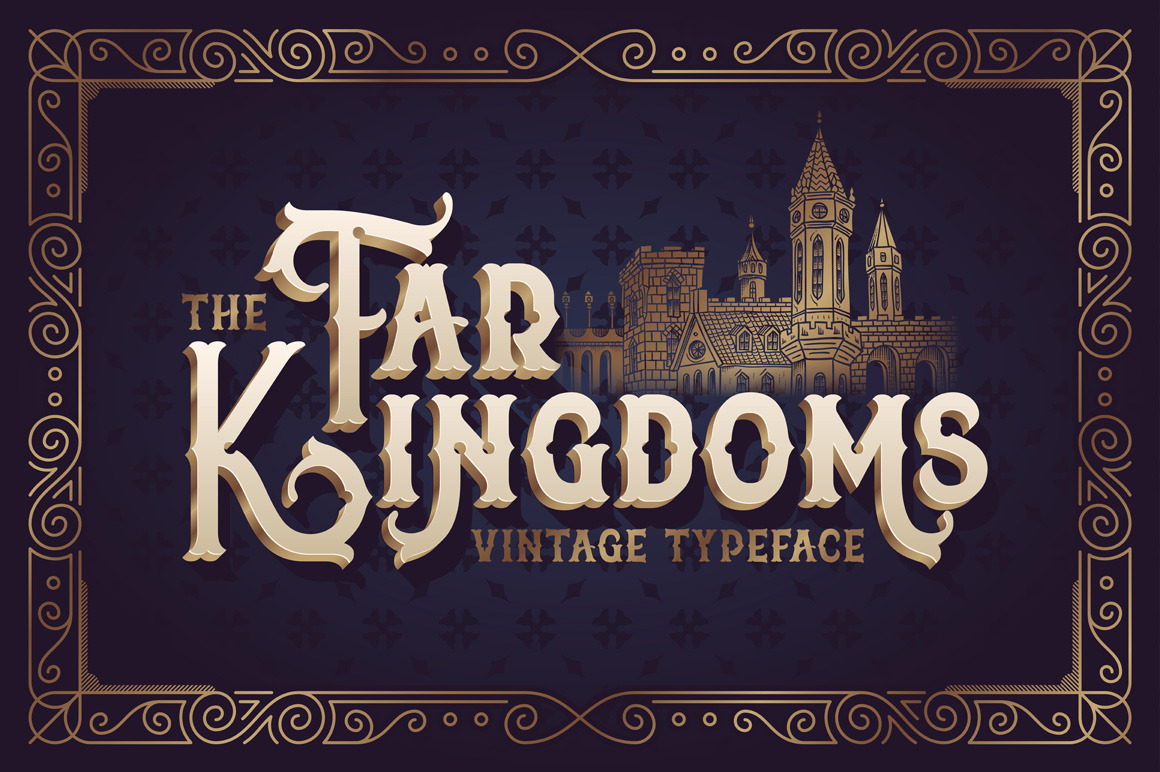
The Far Kingdoms font
Hello! Presenting the Far Kingdoms vintage typeface. It comes with lots of bonus graphics, including a castle illustration, decorative frame and vector graphic style for illustrator. Also this font has an OpenType features, such as stylistic alternates (5th screenshot).
Note: This font contains only latin characters (all available characters you can see on 3rd screenshot)